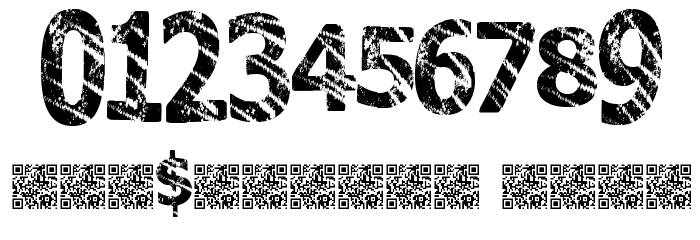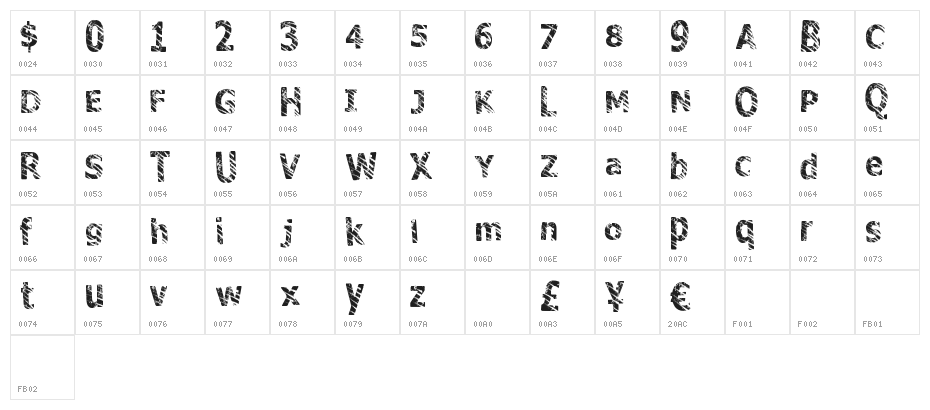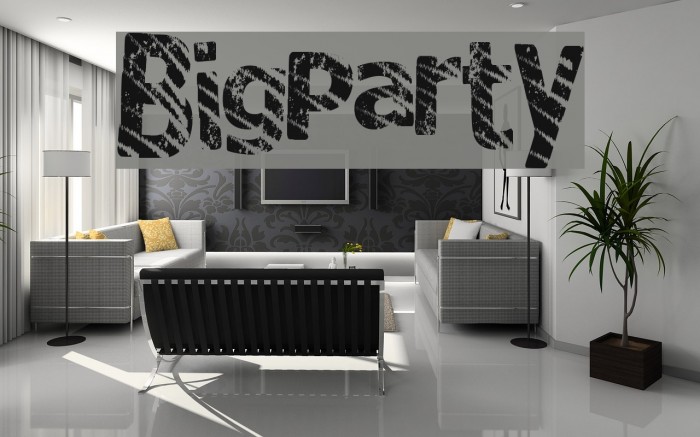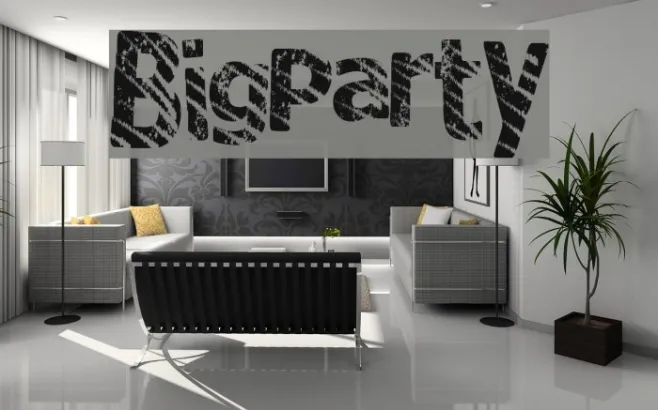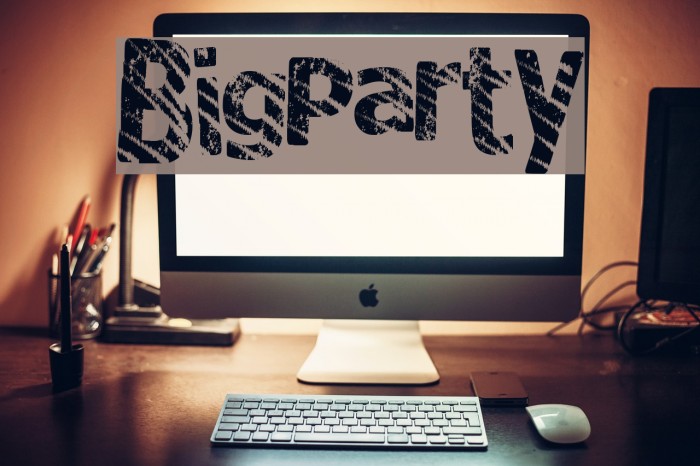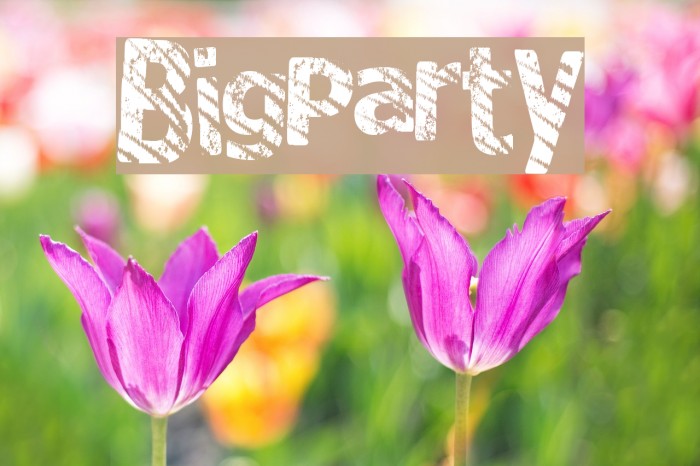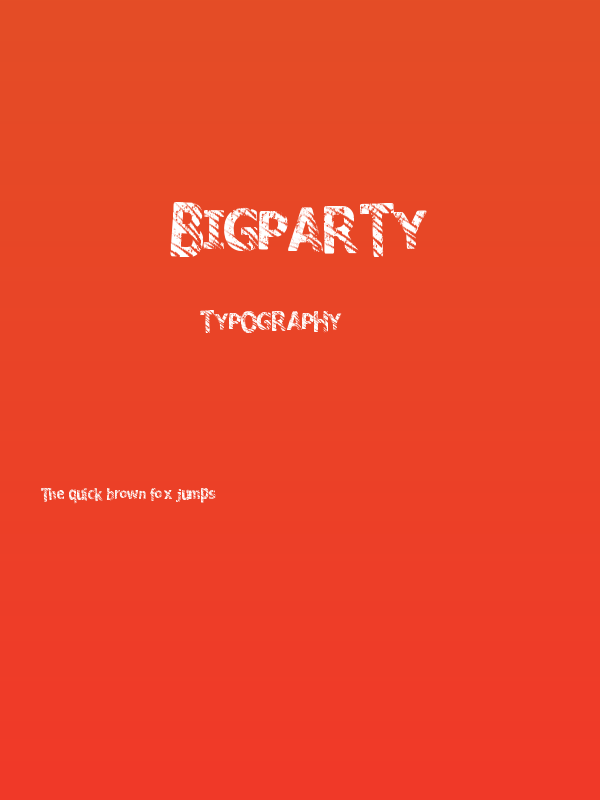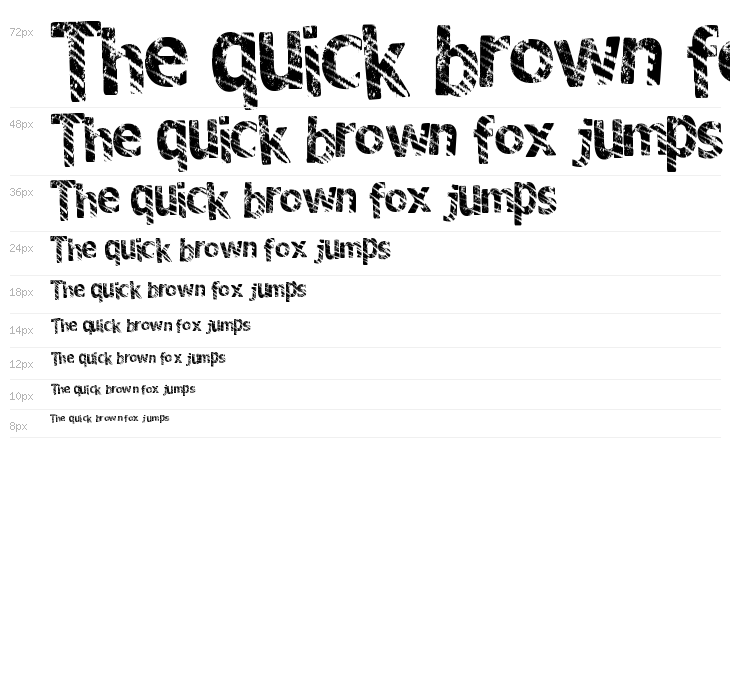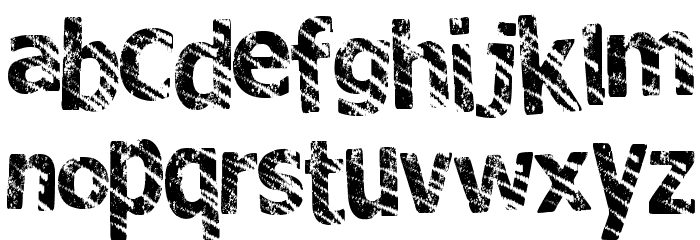
BigParty Font
This font features a bold and distressed style, characterized by a rough, textured appearance that gives it a grunge or worn-out look. The uppercase and lowercase letters, along with numbers and special characters, all share this rugged texture, making it ideal for designs that require a raw, edgy feel. The font maintains a consistent weight throughout, with each character exhibiting a bold presence. Its unique style is perfect for projects that aim to capture attention with a strong visual impact.
A bold, distressed font with a grunge texture, ideal for edgy designs.
• Proposed Projects: This font is perfect for album covers, posters, urban-themed designs, and any project that requires a bold, gritty aesthetic.
• Overall Style: Grunge, Edgy
• Use Case: Headlines, Posters, Album Covers